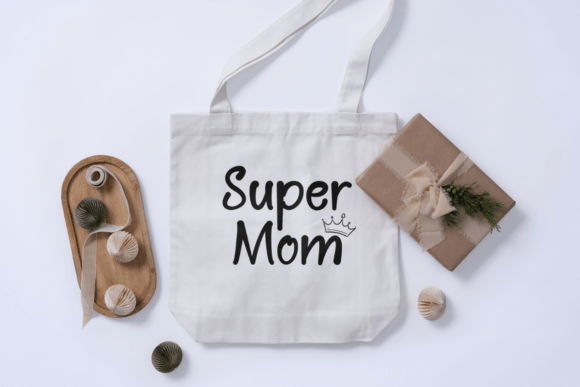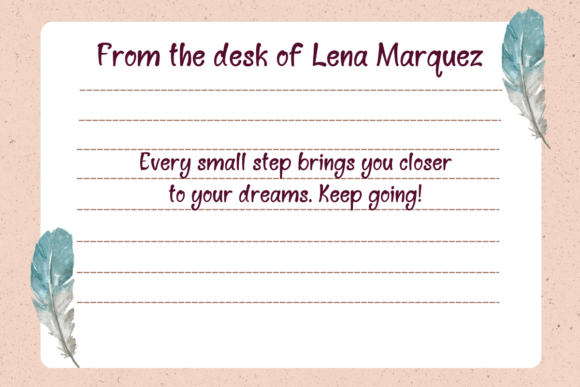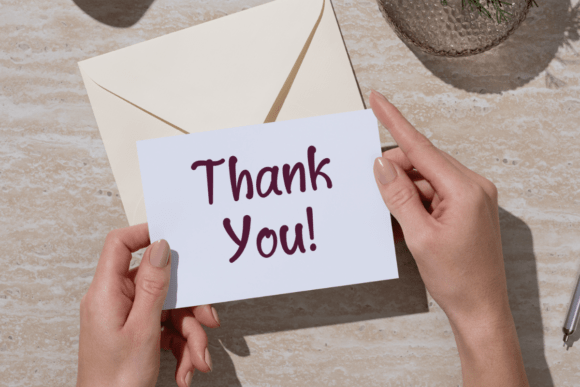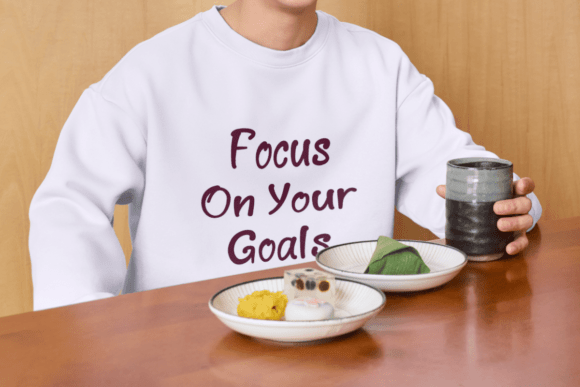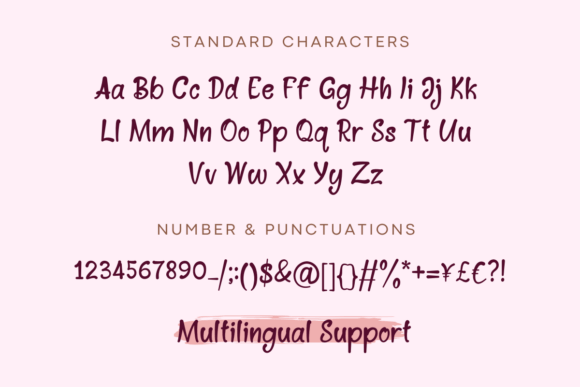
Dandy Lines Font: Elevate Your Designs with Elegance and Sophistication
In the world of typography, a font can make all the difference in capturing the essence of a message. Dandy Lines is a stunning display font that embodies the perfect blend of boldness and elegance, making it an ideal choice for designers and crafters looking to add a touch of sophistication to their work.
Unleash Your Creativity with Dandy Lines
Dandy Lines is more than just a font – it’s a statement piece. Its unique charm and versatility make it perfect for a wide range of applications, from headlines and branding to motivational quotes and creative projects that demand attention. Whether you’re designing personal stationery, branding materials, or social media graphics, Dandy Lines brings a refined and artistic flair to your work.
Key Features of Dandy Lines Font
- Stylish Display Font: Dandy Lines exudes sophistication and creativity, making it ideal for modern designs that require a touch of elegance.
- Complete Character Set: Includes uppercase and lowercase letters, numbers, and a wide range of punctuation marks and symbols, ensuring that you have everything you need to create stunning designs.
- Multilingual Support: Ensures compatibility with various languages, broadening its usability and making it a perfect choice for global brands and designers.
Why Choose Dandy Lines Font?
With Dandy Lines, you can add a touch of sophistication and glamour to your designs. Its elegant lines and curves make it perfect for designs that require a level of refinement, such as luxury branding, high-end product packaging, and sophisticated advertising campaigns.
Moreover, Dandy Lines is incredibly versatile, making it suitable for a wide range of design applications, including:
- Headlines and Titles: Use Dandy Lines to create bold and eye-catching headlines that grab attention and make a lasting impression.
- Branding and Logo Design: Add a touch of elegance to your brand identity with Dandy Lines, perfect for luxury brands, fashion labels, and high-end products.
- Motivational Quotes and Posters: Use Dandy Lines to create inspiring and thought-provoking quotes that resonate with your audience.
- Social Media Graphics: Elevate your social media presence with Dandy Lines, perfect for creating stunning graphics, posters, and ads that stand out.
Tips for Using Dandy Lines Font
To get the most out of Dandy Lines, here are some tips to keep in mind:
- Experiment with Font Sizes: Dandy Lines looks stunning in large font sizes, but it can also be used effectively in smaller sizes to create a more subtle effect.
- Play with Color: Dandy Lines can be used with a wide range of colors, from bold and bright to soft and pastel. Experiment with different color combinations to find the perfect fit for your design.
- Mix and Match: Combine Dandy Lines with other fonts to create a unique and visually appealing design.
Dandy Lines is a captivating display font that is sure to elevate your designs to the next level. With its unique charm, versatility, and range of features, it’s perfect for designers and crafters looking to add a touch of sophistication and elegance to their work. Whether you’re designing for luxury brands, creating social media graphics, or crafting motivational quotes, Dandy Lines is the perfect choice. So why wait? Get creative with Dandy Lines today and let your words stand out with this exquisite font!